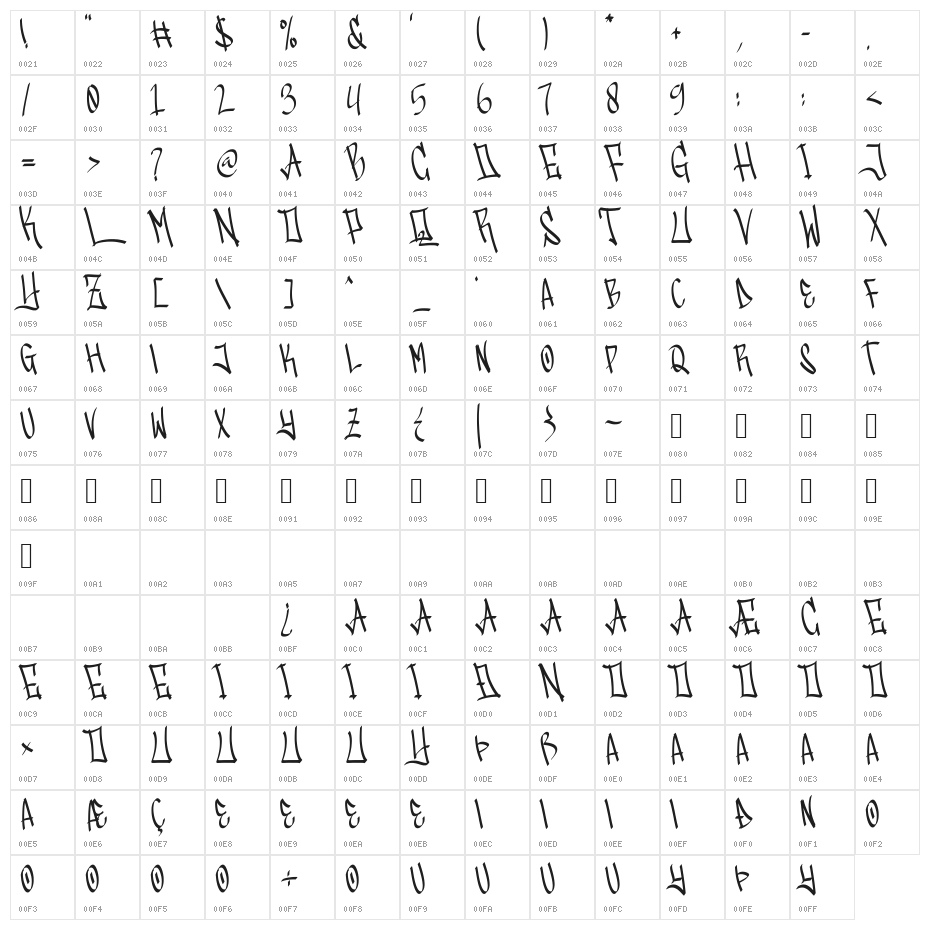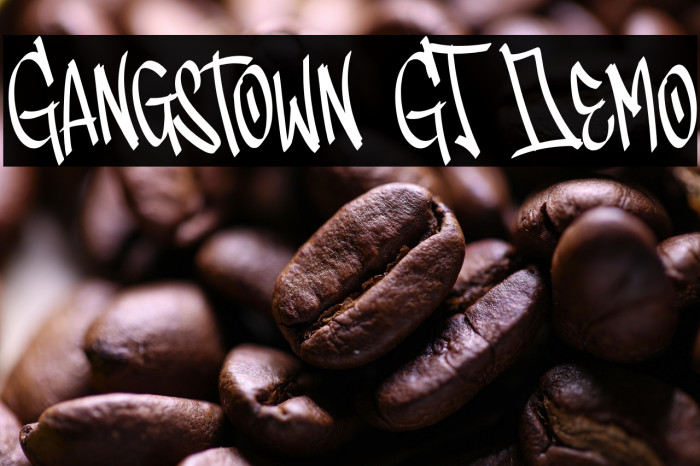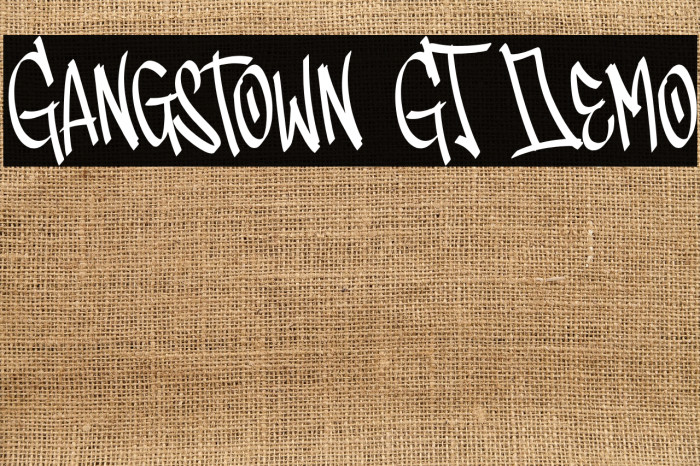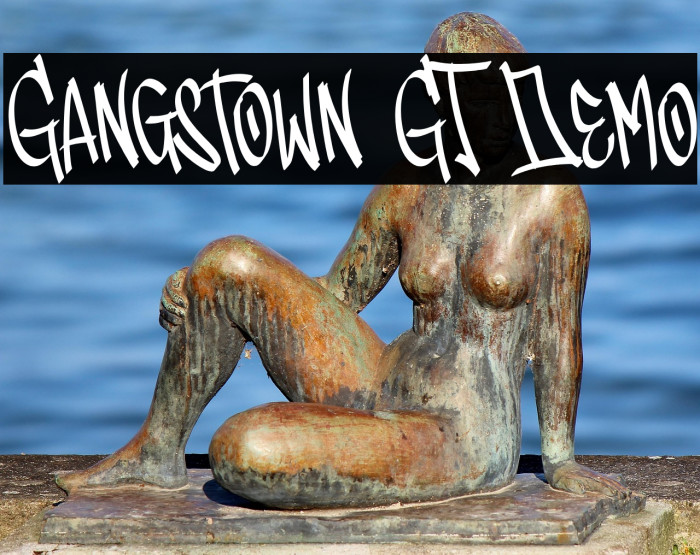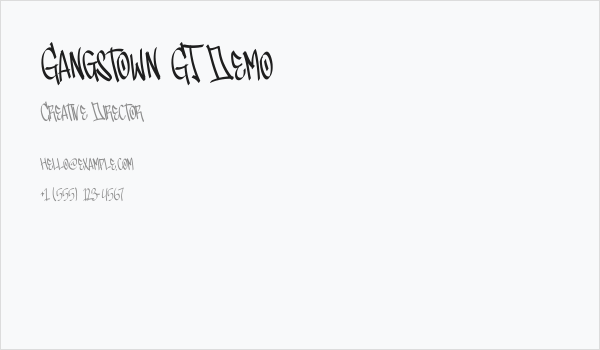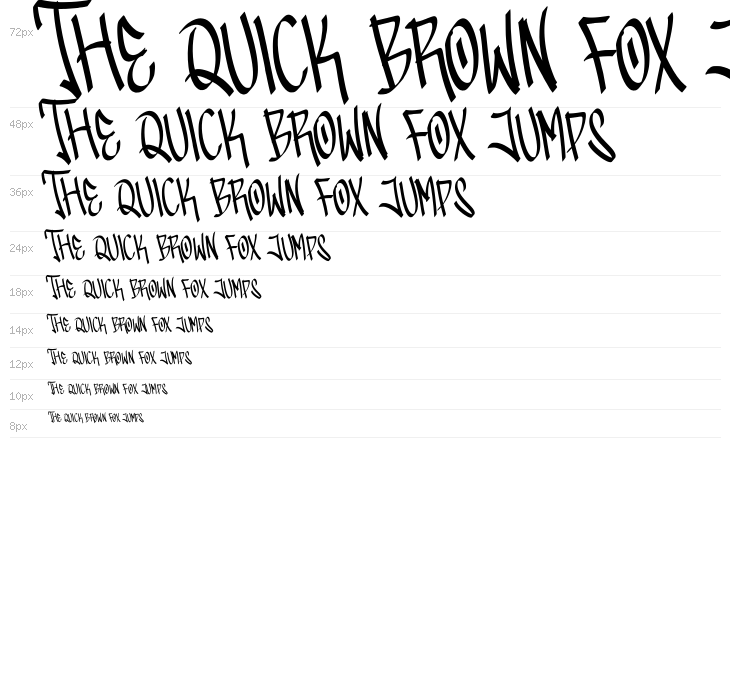
Gangstown GT Demo Font
Gangstown GT Demo Description
This font features a bold, graffiti-inspired style with sharp, angular lines and a dynamic, energetic feel. The uppercase and lowercase letters are designed with a consistent slant, giving the typeface a sense of movement and urgency. The characters are tightly spaced, enhancing the compact and impactful appearance. The numbers and special characters maintain the same edgy aesthetic, making them suitable for attention-grabbing designs. This font is ideal for projects that require a street art or urban vibe, such as posters, album covers, or branding for edgy, modern brands.
| Overall Style | Urban, Graffiti |
| Proposed Projects | Perfect for street art-themed designs, urban branding, posters, and album covers. |